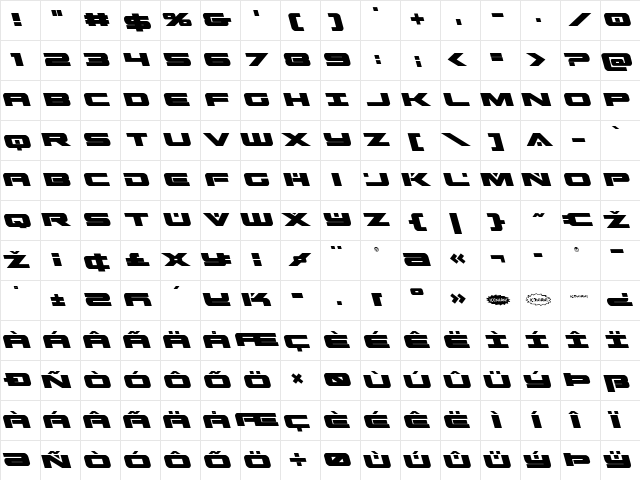
Predataur Leftalic Italic Font Preview
Predataur Leftalic Italic
Predataur Leftalic Italic Font Details
Design Context for Predataur Leftalic Typeface
Predataur Leftalic is a composed and adaptable typeface that performs quietly and consistently across a wide range of design contexts. The dynamic lean of this cut emphasises speed and emphasis in any layout.
Pro Tip: Use Predataur Leftalic for emphasis, pull quotes, and subheadings where its slanted energy can add rhythm to the layout.